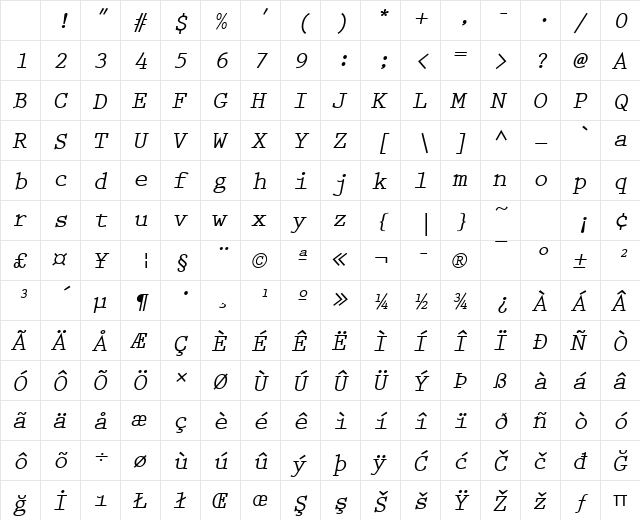
Complete PrestigeEliM Bold Oblique glyph index. Displaying only characters natively supported by PrestigeEliM Bold Oblique font.
PrestigeEliM is a composed and adaptable typeface that performs quietly and consistently across a wide range of design contexts. The slanted form adds forward momentum and visual energy. Its bold stroke weight gives it real presence on the page.